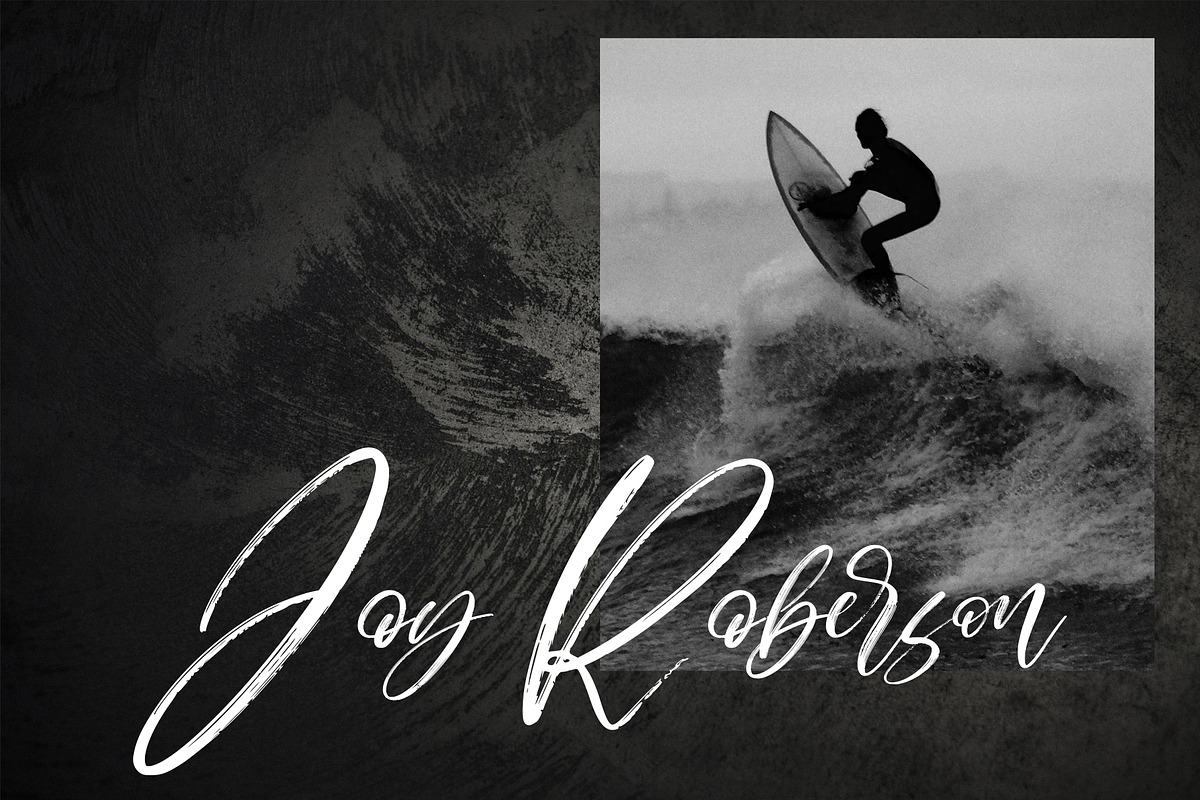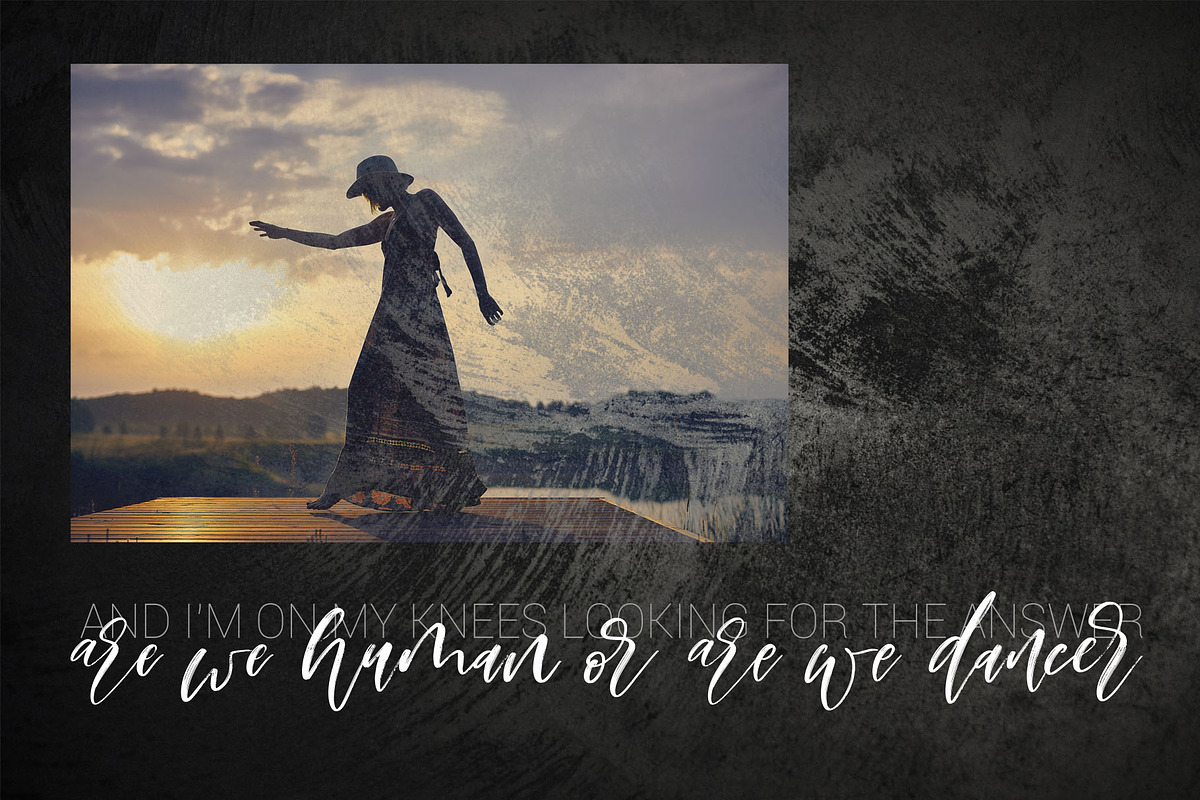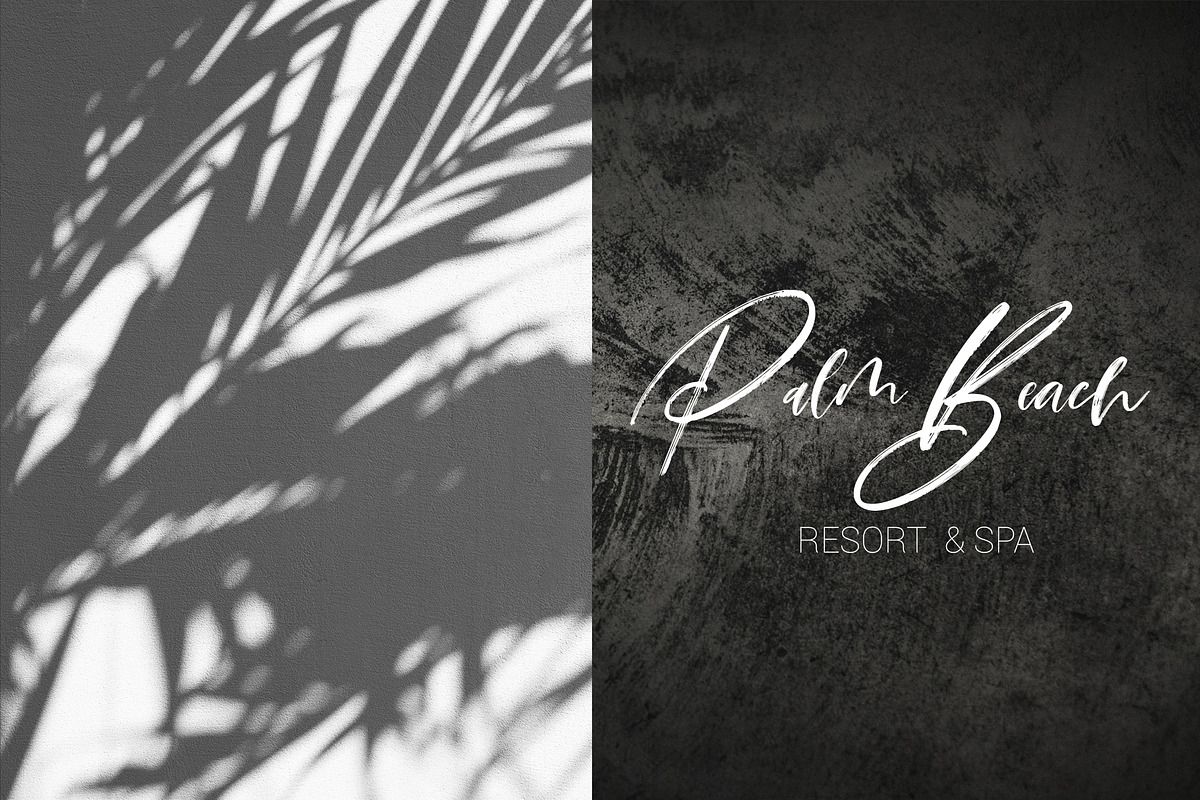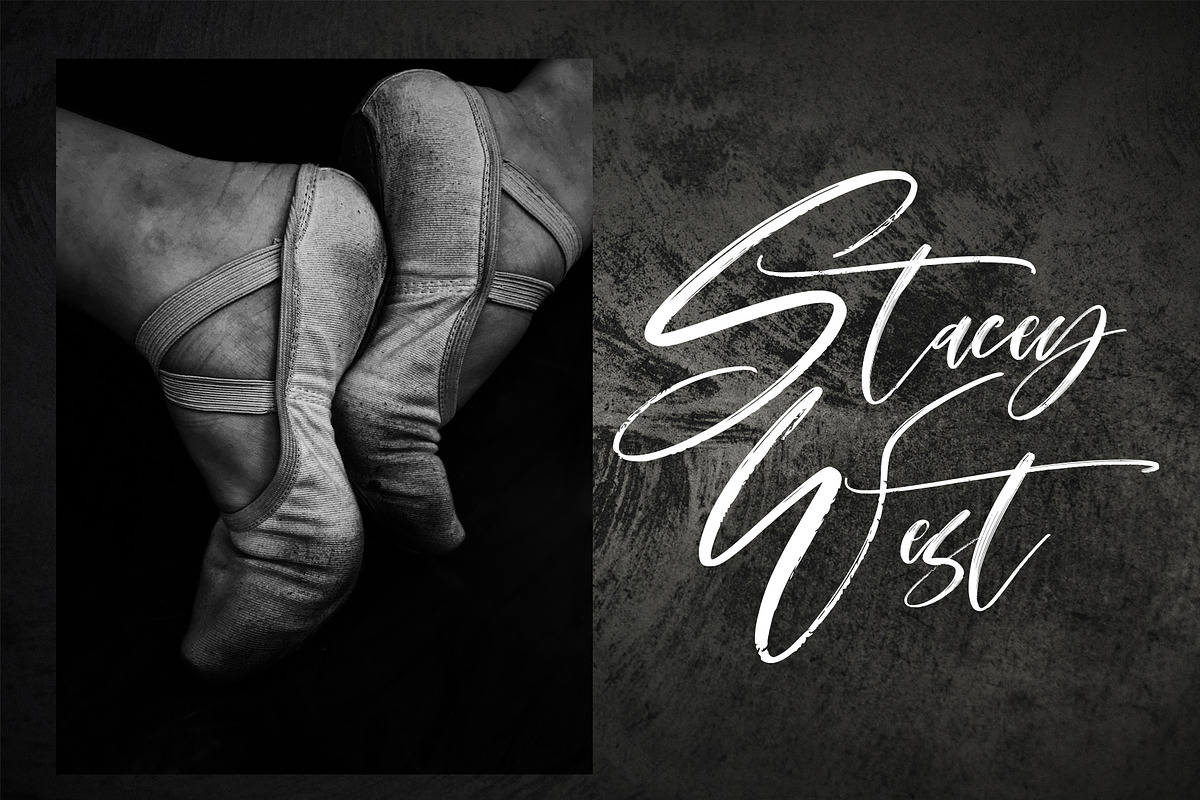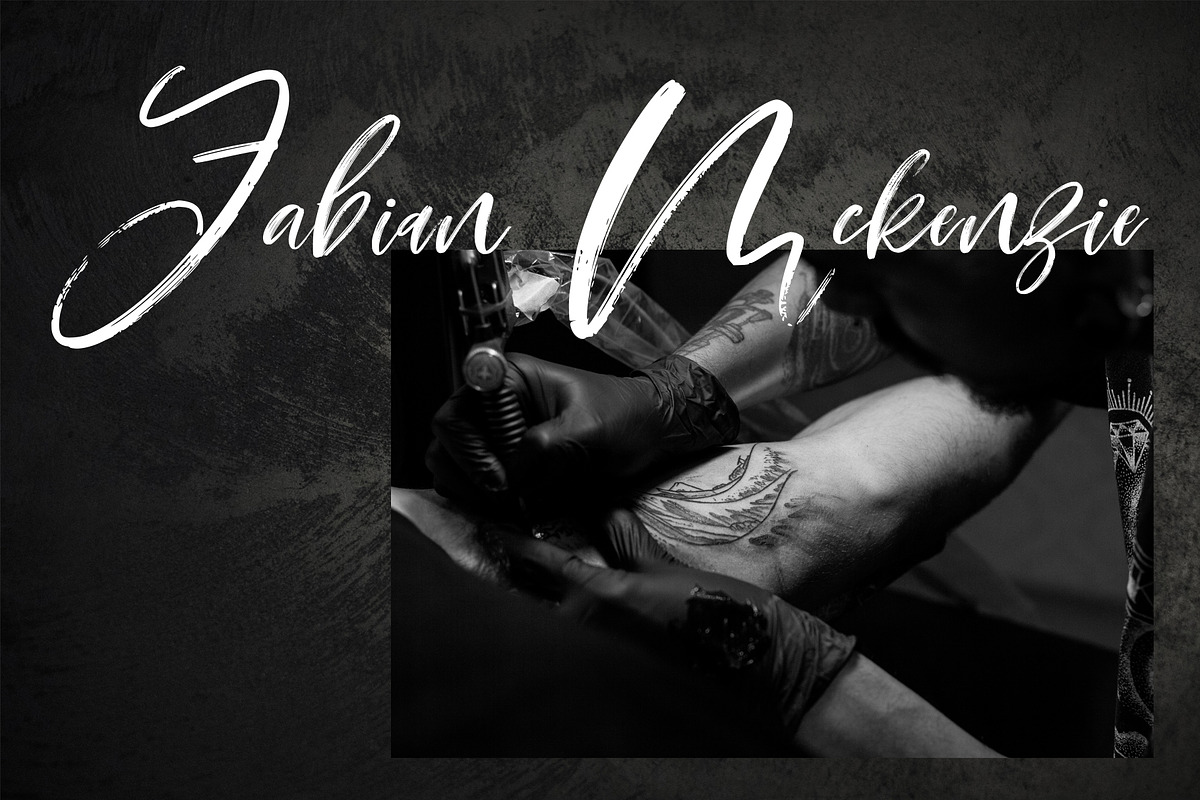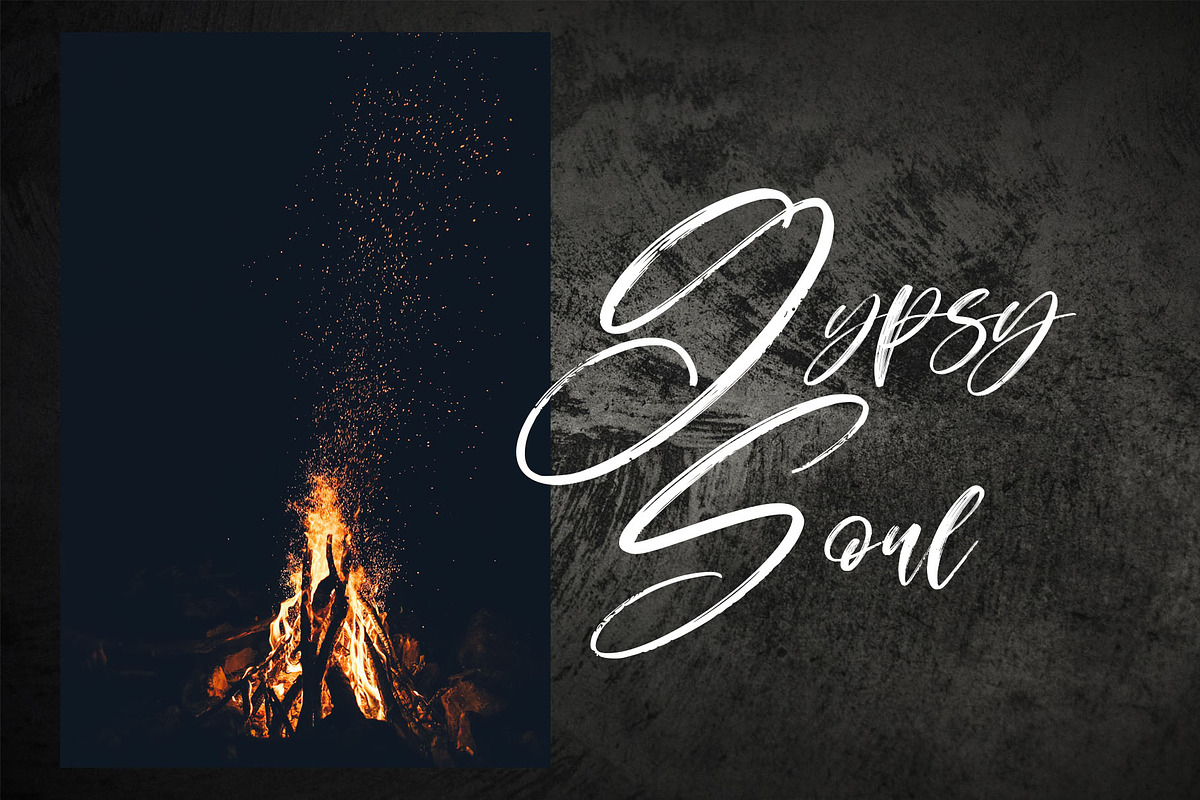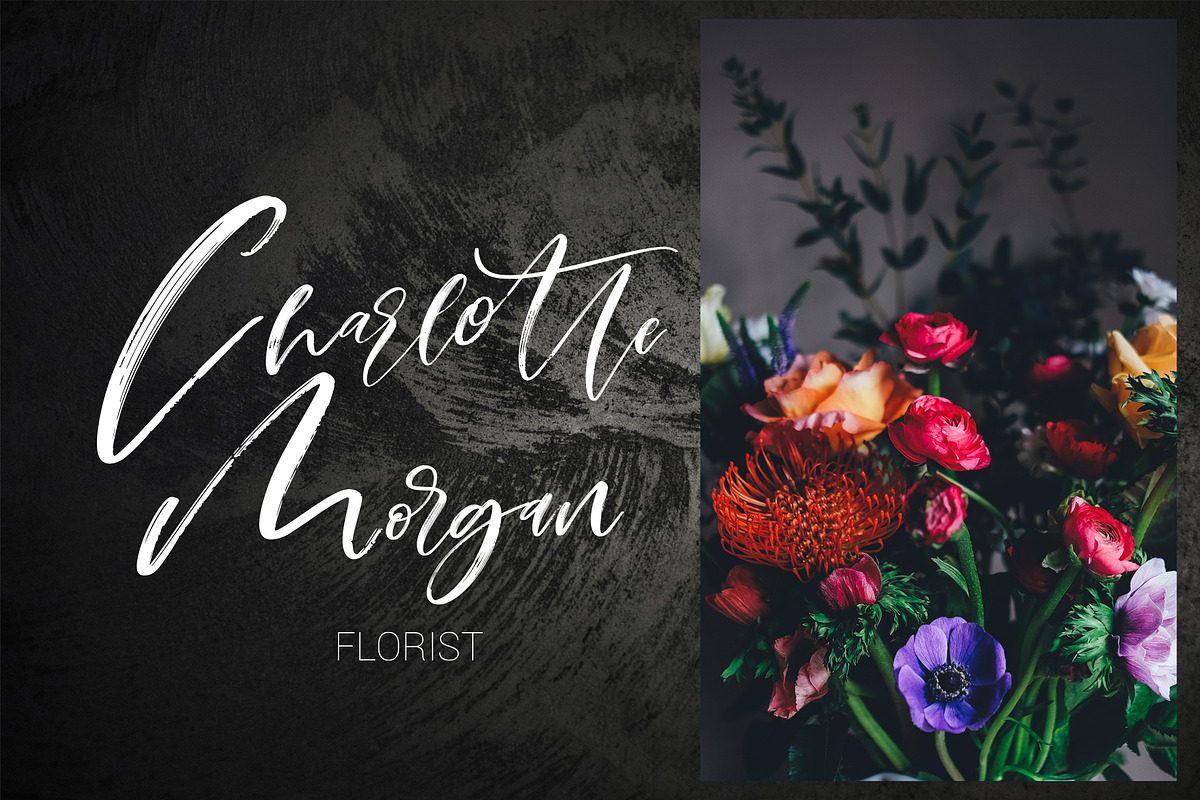
Montenegro.Textured script font
Montenegro textured script font & Illustrations - it's a modern textured brush font & illustrations
Why Montenegro.Textured script font is worth a look
Montenegro.Textured script font by CallMeStasia fits naturally into Branding, posters, packaging, typography.